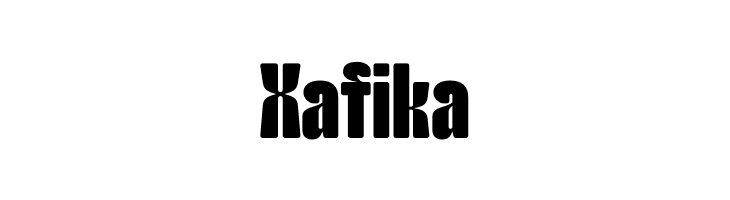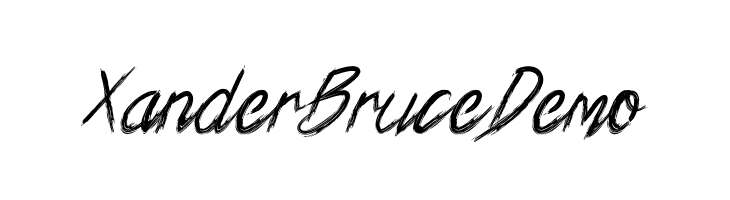
A bold, modern font with thick, uniform strokes and geometric shapes.
A bold, decorative font with high contrast and artistic flair.
An elegant, decorative font with artistic flourishes and a sophisticated style.
A highly stylized, abstract font with sharp, angular lines and a chaotic aesthetic.
A bold, geometric font with sharp angles and a futuristic style.
A dynamic, brush-style font with bold, expressive strokes.
A bold, graffiti-inspired font with sharp angles and a dynamic, fragmented style.
A modern, monospaced font with geometric shapes and rounded edges.